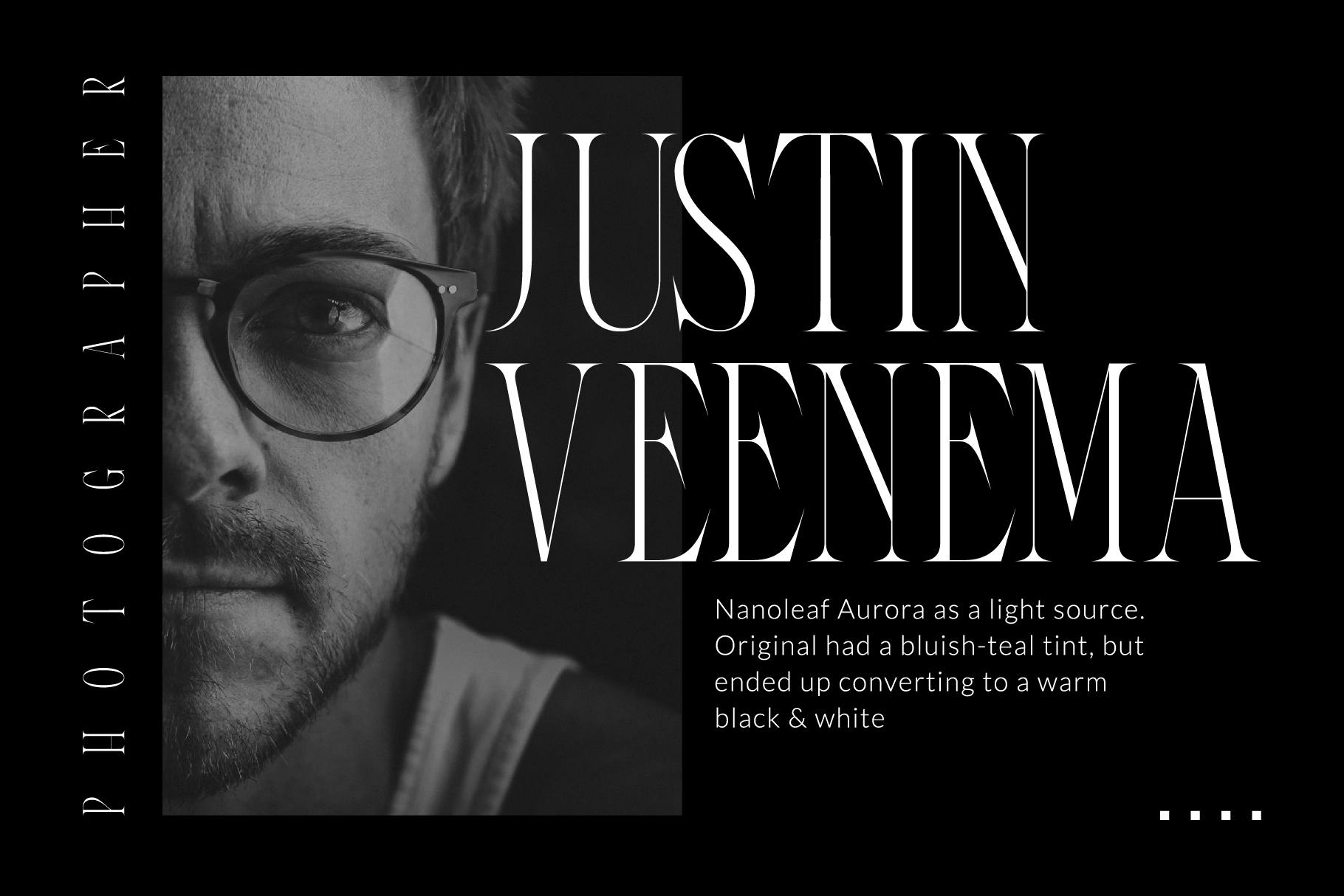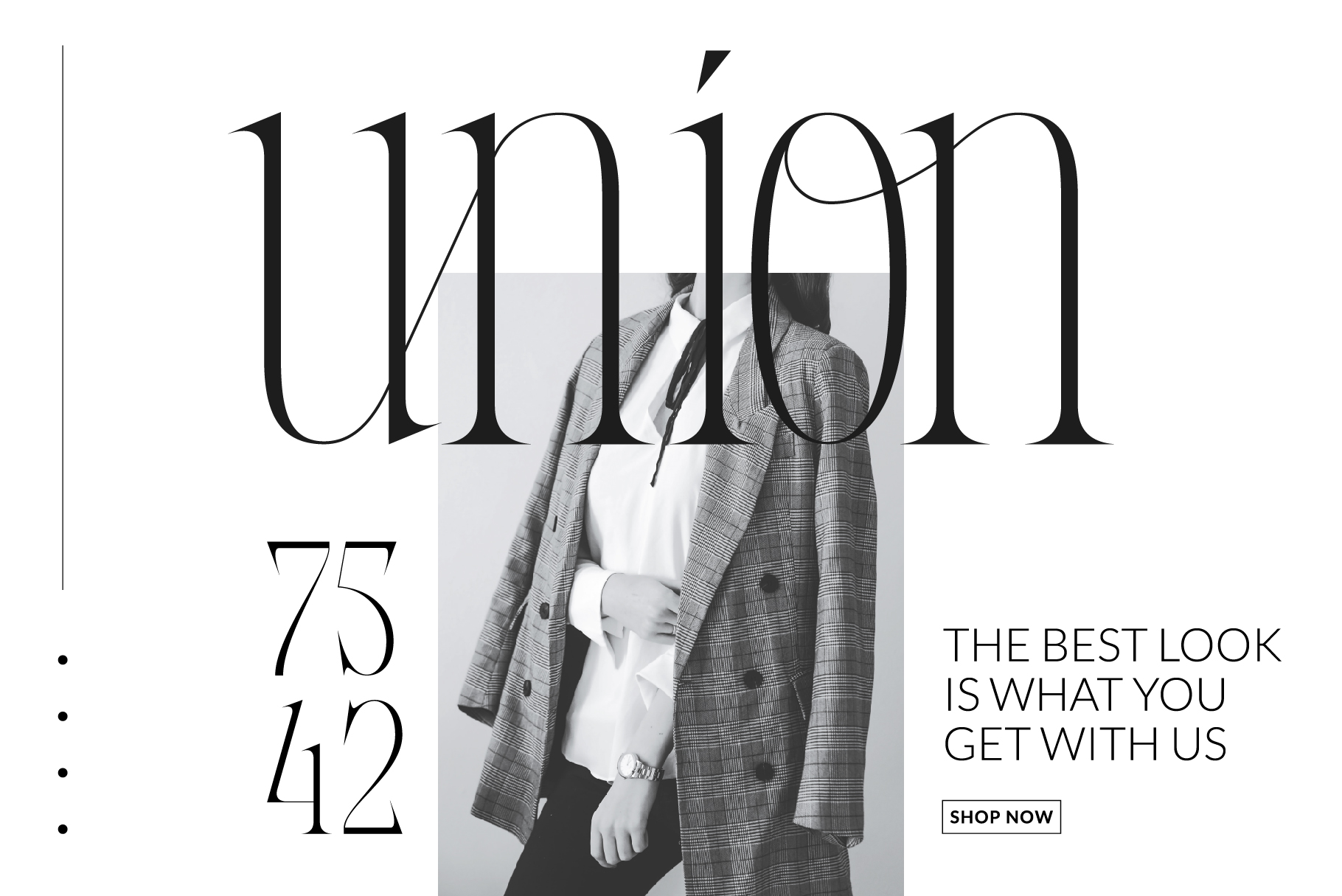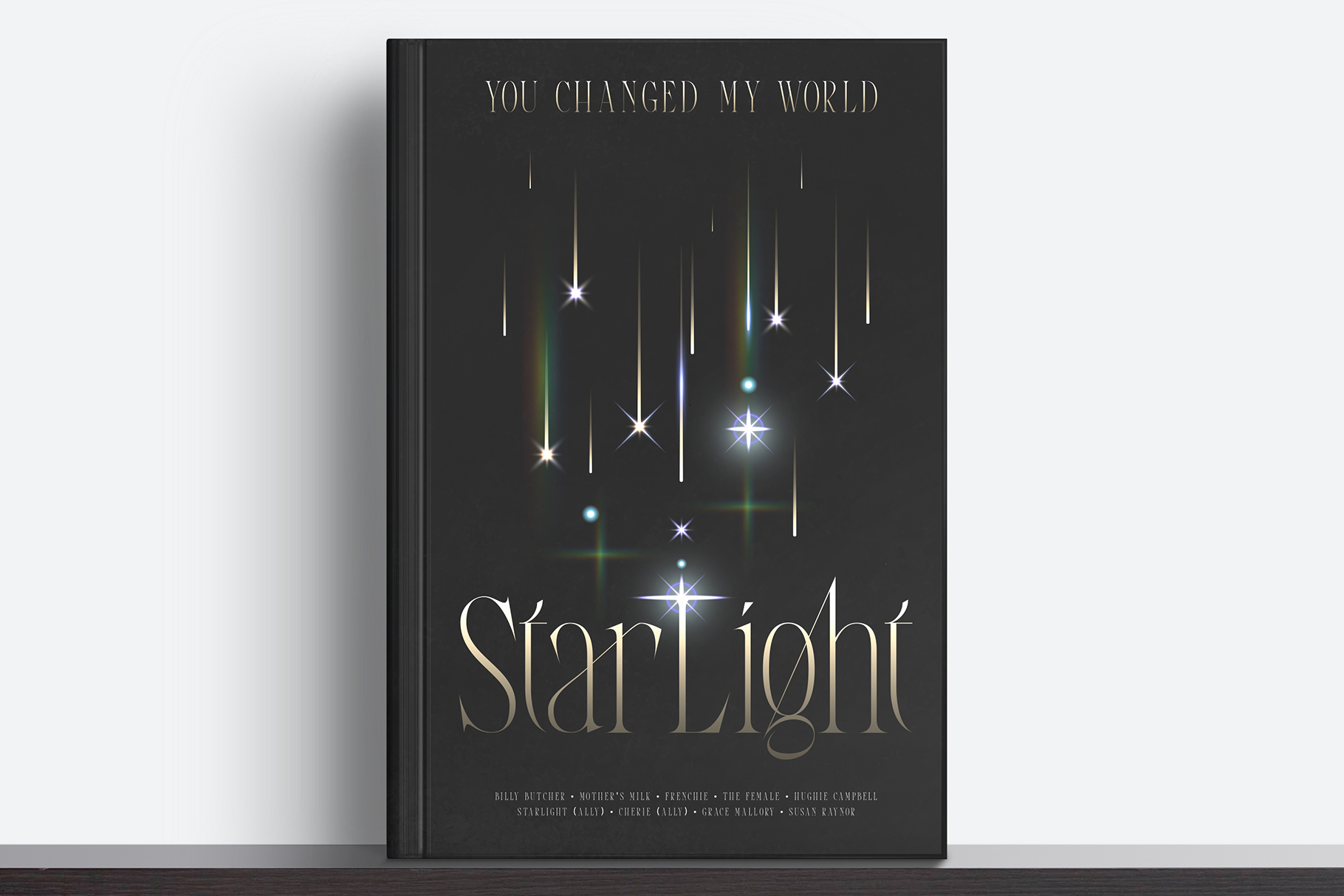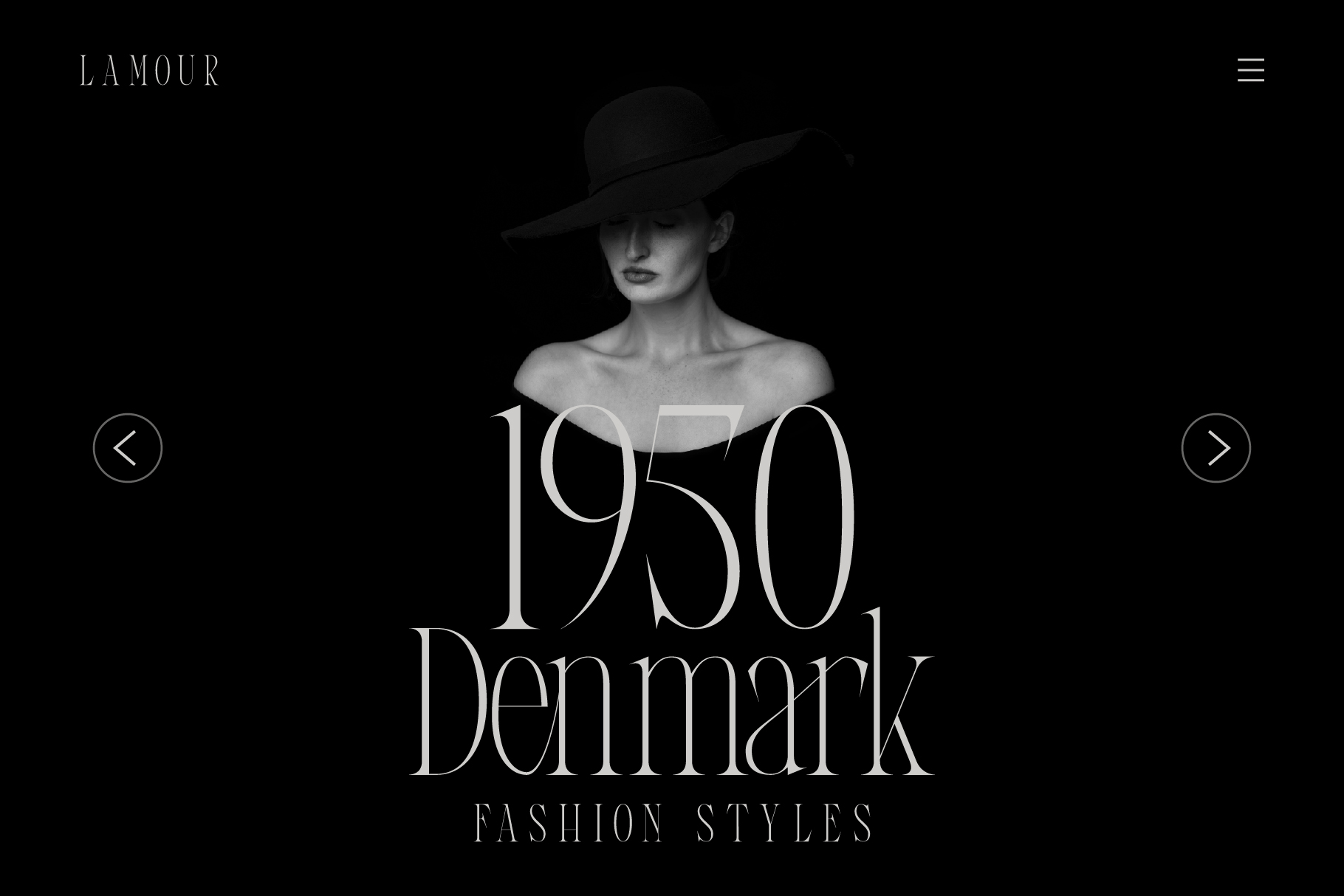
Lamour Font
Lamour Serif Font
It\’s a condensed serif font with a luxurious style designed very neatly and cleanly, it has 49 special ligatures that support this font to be more unique.
Lamour has the meaning of love which is highly appreciated and should be held in everyone\\\’s heart as this font concept is made with love.